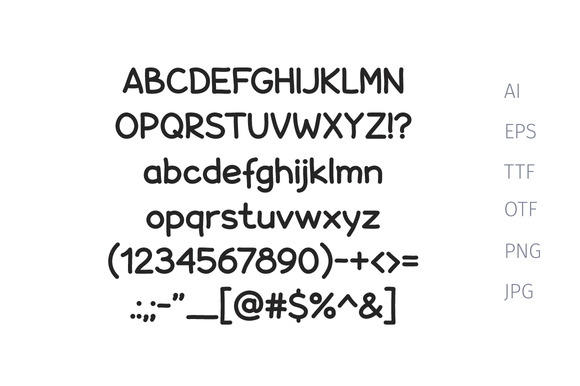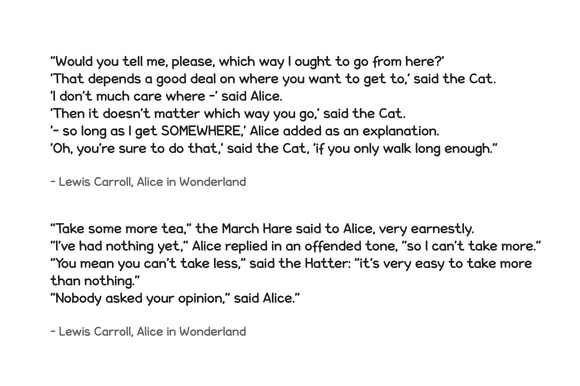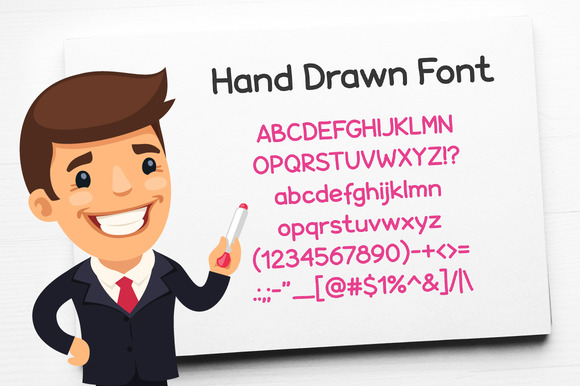
The Beauty of Hand Drawn Fonts: A Comprehensive Guide to Hand Drawn Letters and Numbers
As a designer or crafter, you’re likely no stranger to the world of typography. With so many font options available, it can be overwhelming to choose the right one for your project. However, if you’re looking for a font that adds a touch of personality and whimsy to your design, a hand drawn font may be just what you need. In this article, we’ll take a closer look at the Hand Drawn Letters and Numbers font, a smooth sans serif font that is sure to elevate your designs.
What is a Hand Drawn Font?
A hand drawn font, as the name suggests, is a font that has been created by drawing each letter and number by hand. This process involves creating a unique and original design for each character, resulting in a font that is both personal and distinctive. Hand drawn fonts can range from simple and elegant to complex and ornate, making them suitable for a wide range of design applications.
About the Hand Drawn Letters and Numbers Font
The Hand Drawn Letters and Numbers font is a beautiful example of a hand drawn font. This smooth sans serif font features stunning letters and numbers that have been carefully crafted to create a cohesive and visually appealing design. Every letter in the font has been drawn by hand and optimized to ensure a smooth and consistent look, making it perfect for use in a variety of design projects.
Characteristics of the Hand Drawn Letters and Numbers Font
So, what sets the Hand Drawn Letters and Numbers font apart from other fonts? Here are a few key characteristics that make this font so unique:
- Hand drawn letters and numbers: Each character in the font has been carefully drawn by hand, giving the font a personal and distinctive feel.
- Smooth sans serif design: The font features a smooth sans serif design, making it easy to read and perfect for use in a variety of design applications.
- Playful tone: The Hand Drawn Letters and Numbers font has a playful tone that is sure to add a touch of personality to your designs.
- Optimized for coherence: Every letter in the font has been optimized to create a smooth and coherent design, ensuring that your text looks great and is easy to read.
Uses for the Hand Drawn Letters and Numbers Font
So, what can you use the Hand Drawn Letters and Numbers font for? The possibilities are endless, but here are a few ideas to get you started:
- Branding and logos: The Hand Drawn Letters and Numbers font is perfect for use in branding and logos, adding a touch of personality and whimsy to your design.
- Signage and displays: The font’s smooth sans serif design makes it easy to read, making it perfect for use in signage and displays.
- Packaging and labels: Add a touch of personality to your packaging and labels with the Hand Drawn Letters and Numbers font.
- Digital design: The font is also perfect for use in digital design, including social media graphics, website headers, and more.
Tips for Using Hand Drawn Fonts
Here are a few tips for using hand drawn fonts in your designs:
- Use them sparingly: Hand drawn fonts can be attention-grabbing, so use them sparingly to avoid overwhelming your design.
- Pair them with other fonts: Pair your hand drawn font with other fonts to create visual interest and add depth to your design.
- Experiment with colors and textures: Hand drawn fonts look great with bold colors and textures, so don’t be afraid to experiment and add some personality to your design.
| Font Name | Hand Drawn Font |
In conclusion, the Hand Drawn Letters and Numbers font is a beautiful and versatile font that is sure to elevate your designs. With its smooth sans serif design, playful tone, and hand drawn letters and numbers, this font is perfect for use in a variety of design applications. Whether you’re a designer or crafter, we hope this article has inspired you to explore the world of hand drawn fonts and add a touch of personality to your designs.